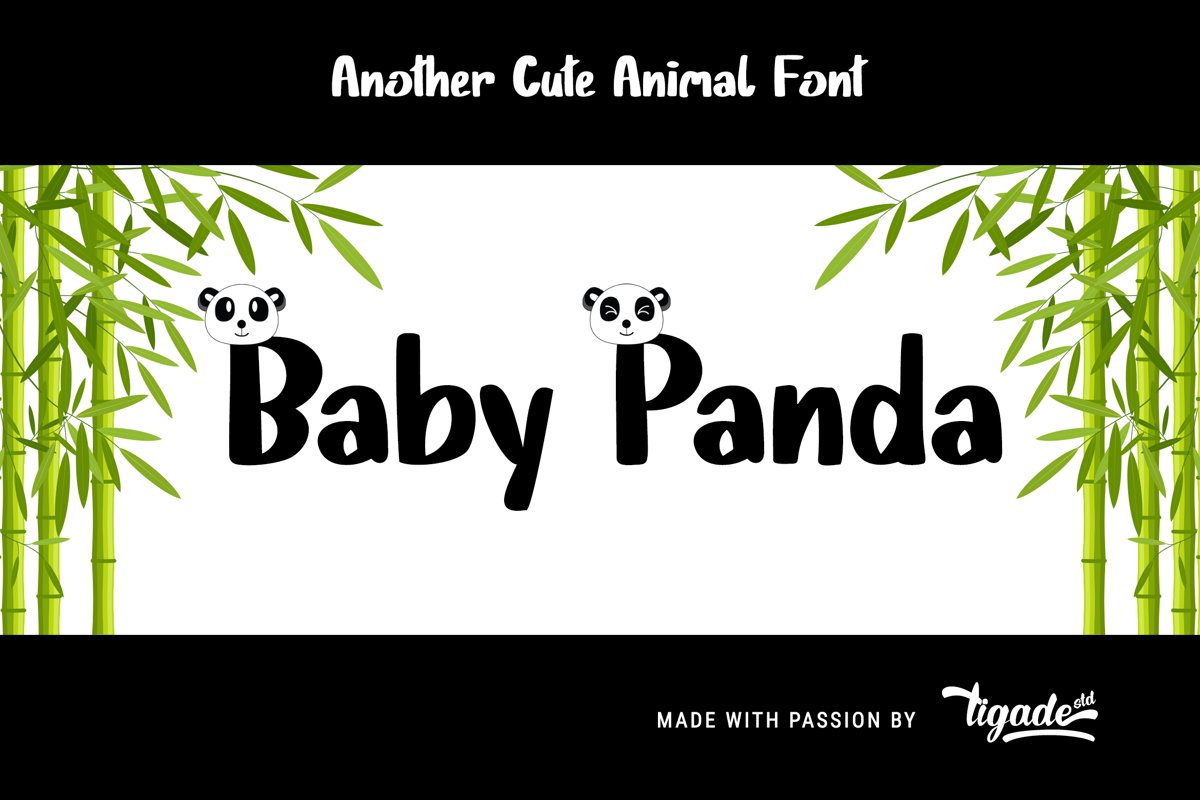
Baby Panda | Simply Adorable Font
Baby Panda Stripes
Baby Panda
Baby Panda. It is another cute animal font.
Great for any general design. It is suitable for Logo, Cards, Branding, Social Media, Youtube Thumbnail, Advertisement, Posters, any many others.
- Standard Characters (All Uppercase)
- Numerals
- Minimum Punctuation
- International Characters
- Bonus Stripes Style